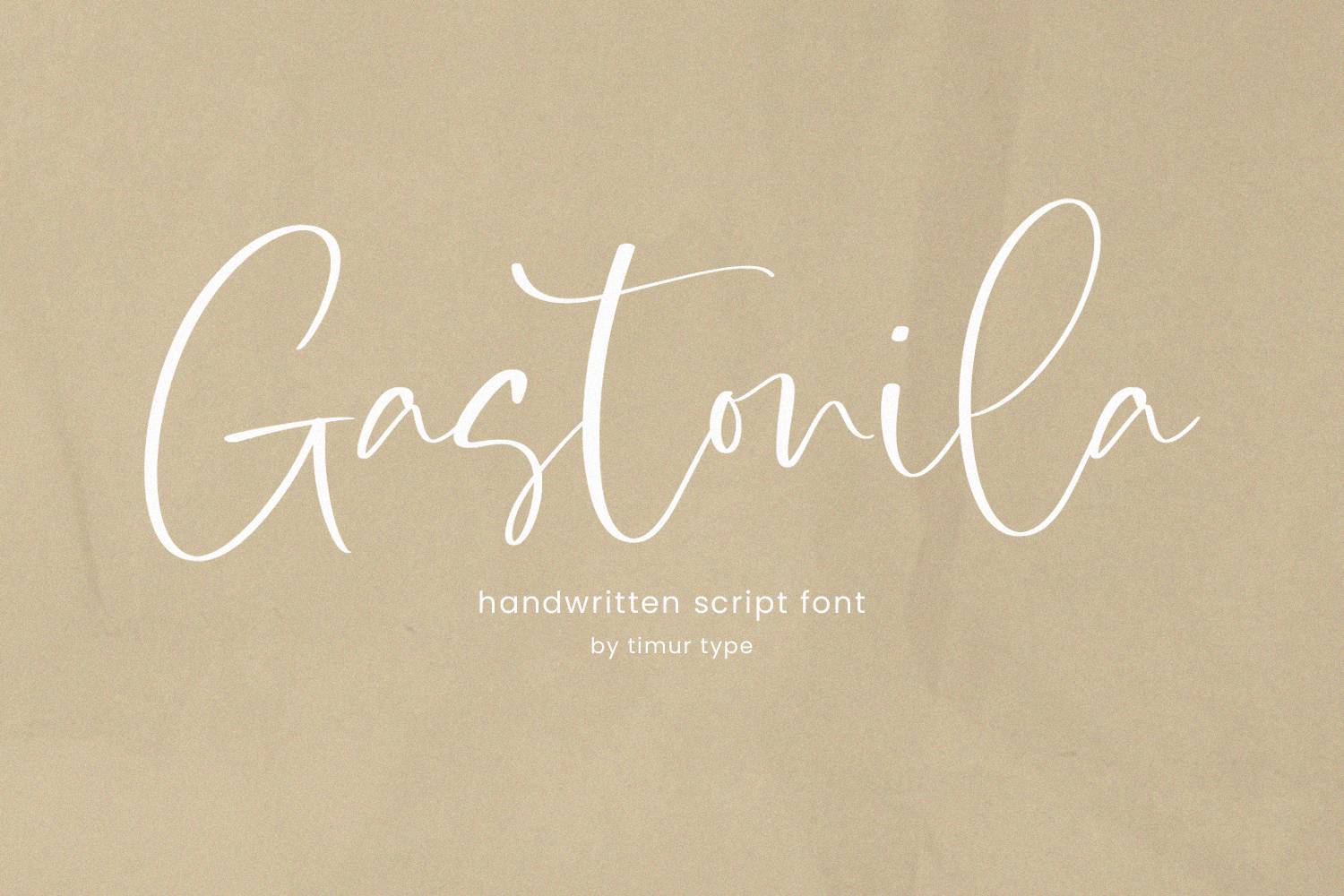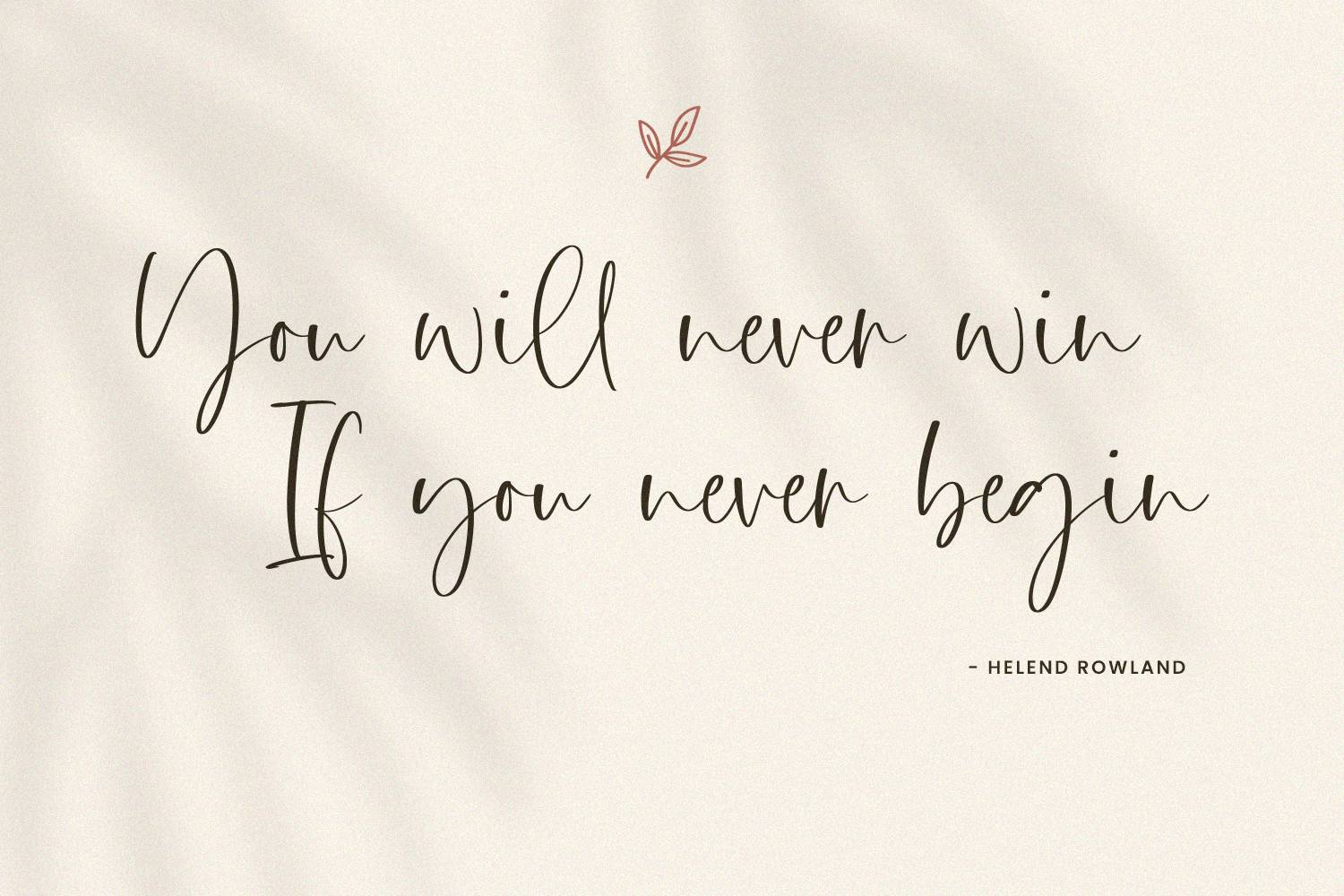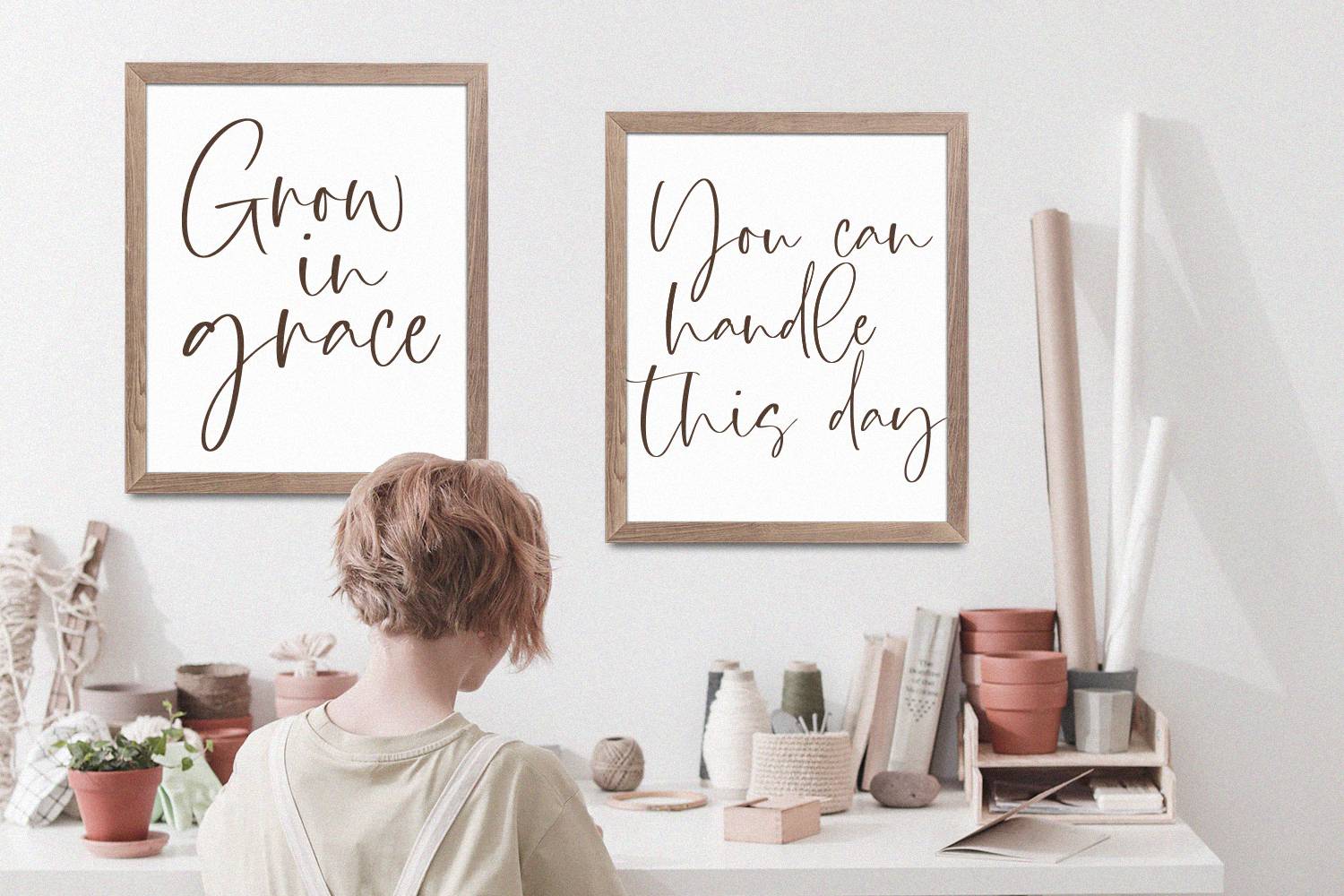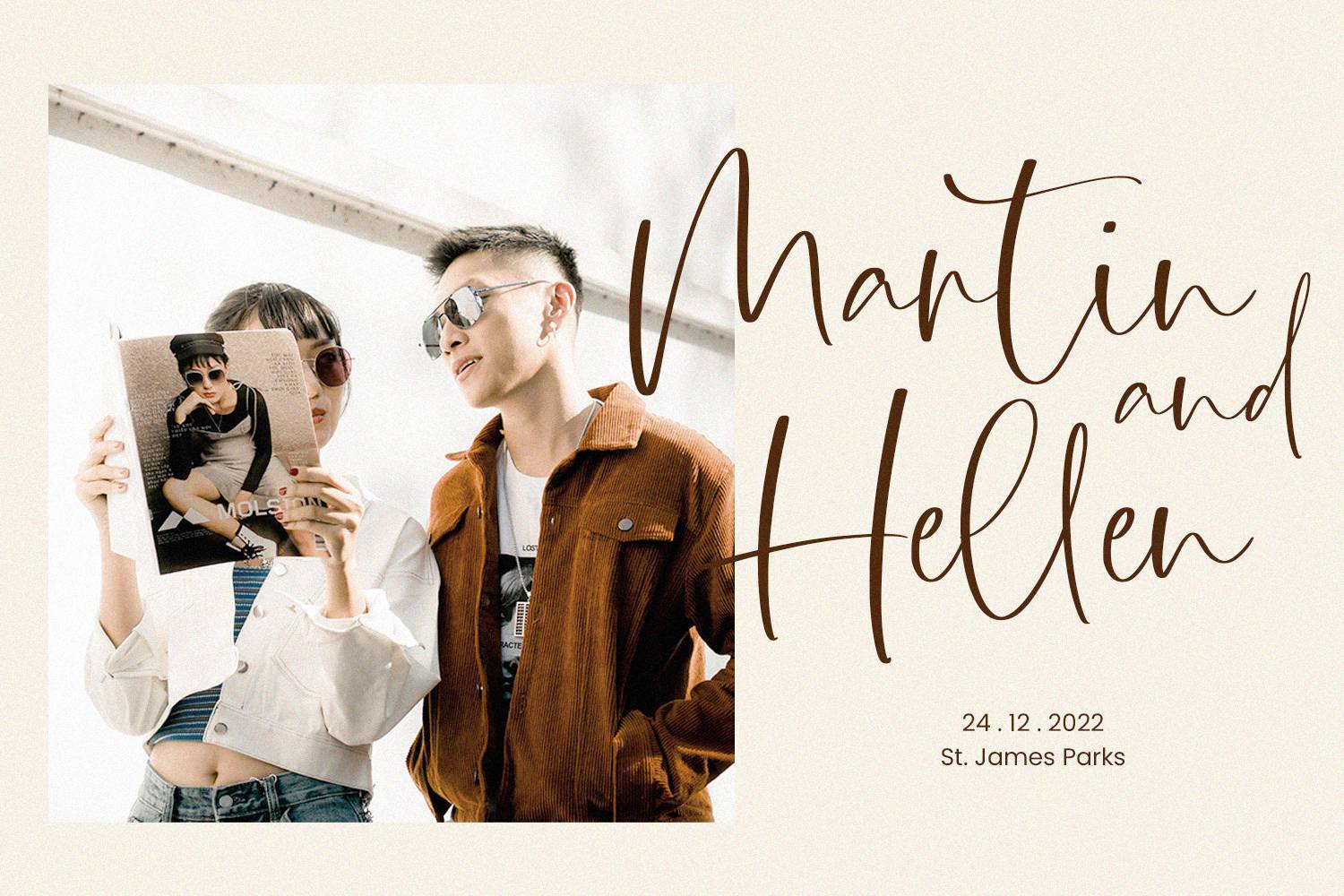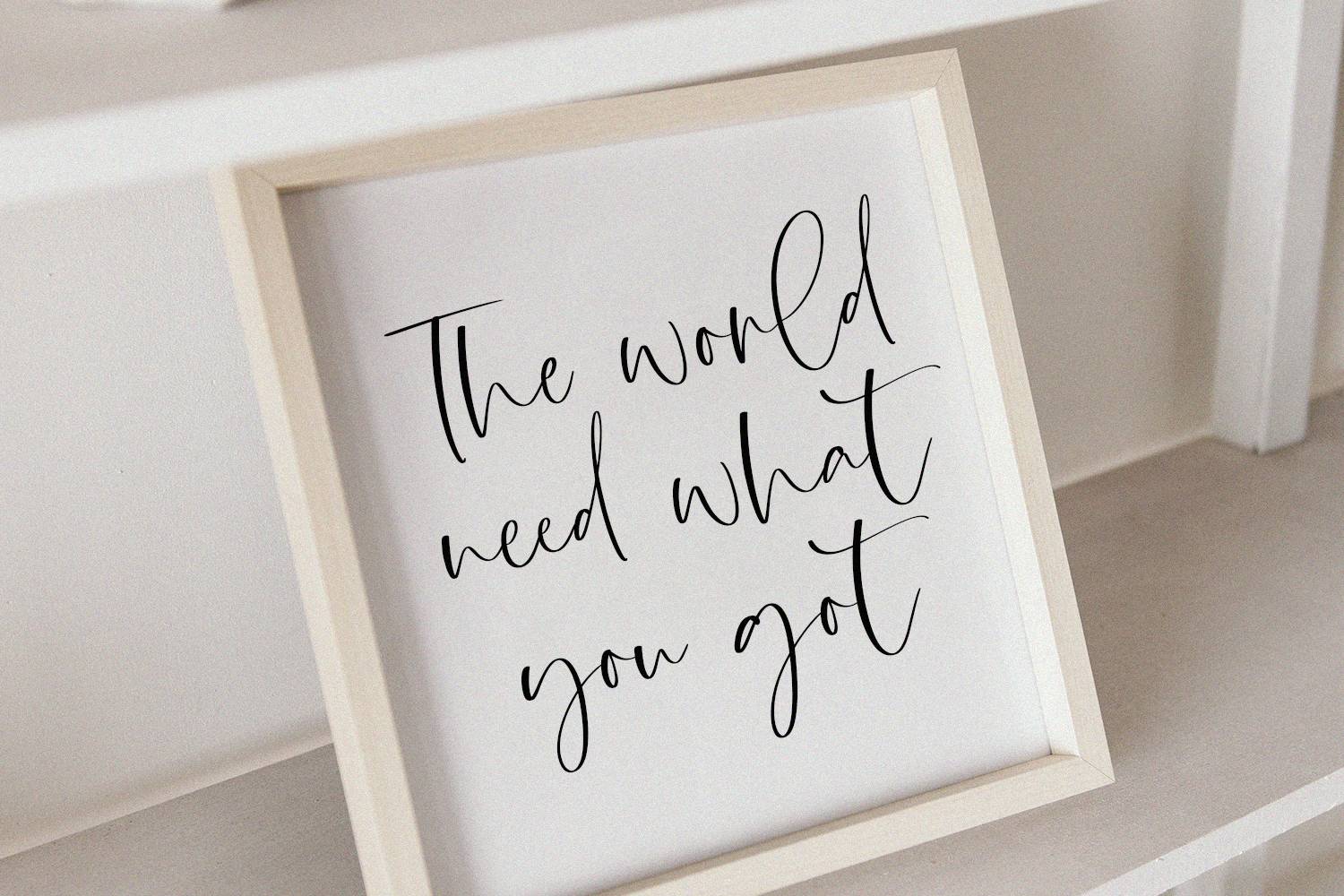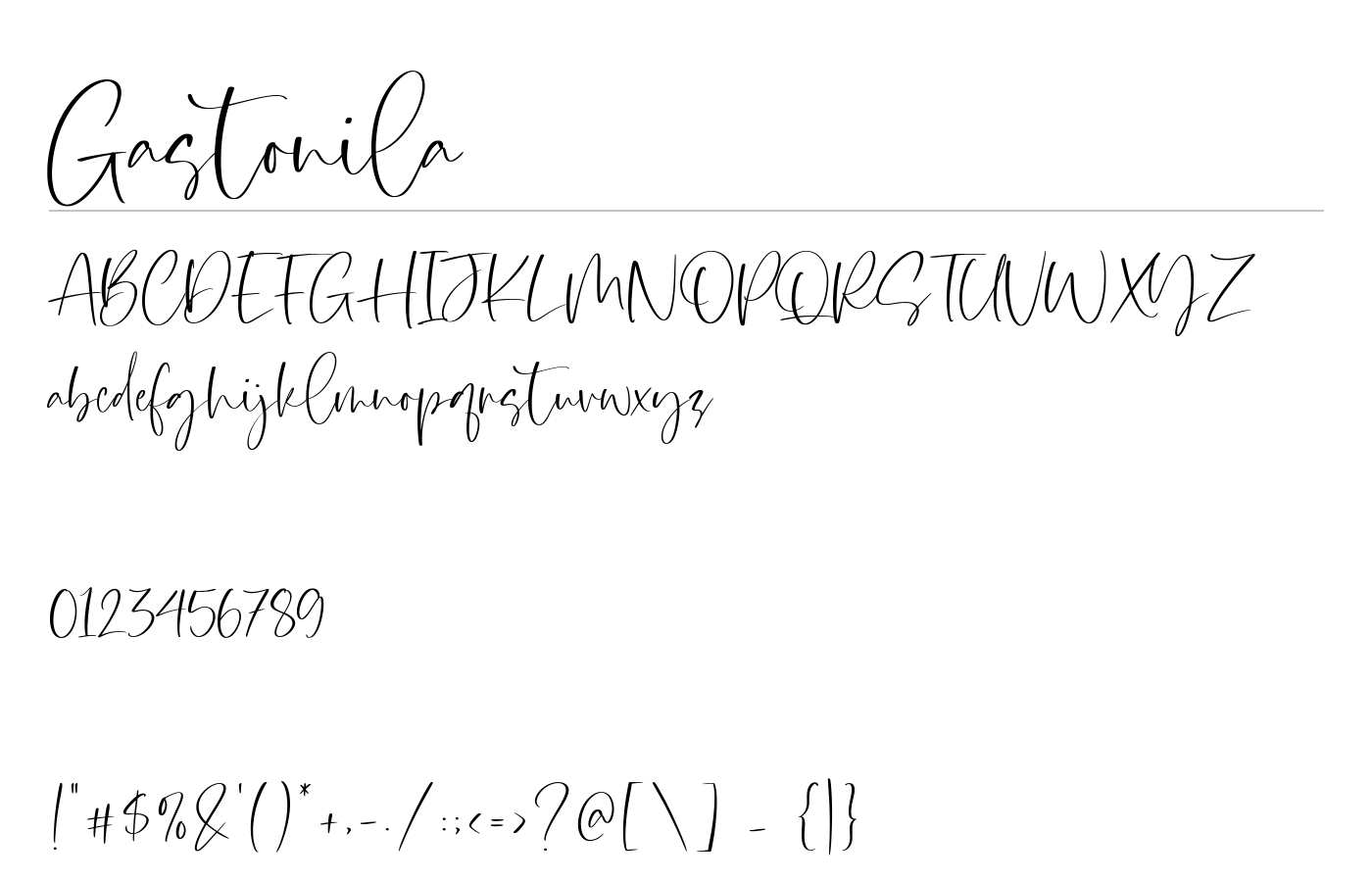
Gastonila is a delicate, handwritten script font featuring slender, flowing strokes with a light weight and tall x-height that lend it an elegant, airy feel. Its playful yet refined letterforms, combining both uppercase and lowercase styles with unique flourishes, make it ideal for creative branding, invitations, and stylish editorial projects where a personal and sophisticated touch is desired. This font works best in display settings where its graceful, casual charm can stand out and add personality.
Gastonila Font
About Gastonila Font